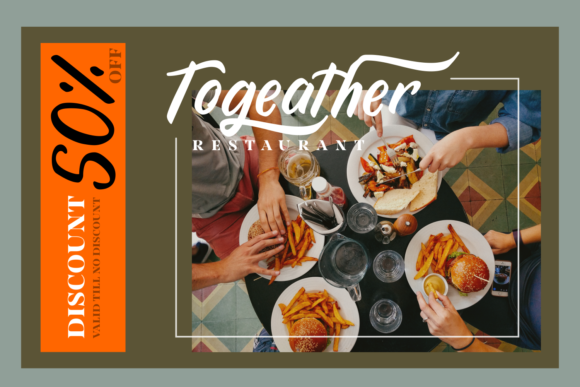
Aloody Font: Elevate Your Designs with Bold, Hand-Drawn Flair
Are you tired of using the same old fonts in your designs? Do you want to add a touch of elegance and sophistication to your projects? Look no further than Aloody Font, a stunning hand-drawn typeface that features bold, strong swashes. These decorative extras make it the perfect font for creating impactful designs, such as headlines, posters, banners, and much more.
What Makes Aloody Font So Special?
Aloody Font is a unique and eye-catching typeface that is sure to take your designs to the next level. Its bold, hand-drawn style gives it a distinctive look that is both modern and elegant. The font features strong swashes that add a touch of drama and flair to any design. Whether you’re creating a headline, poster, or banner, Aloody Font is the perfect choice.
Key Features of Aloody Font
- Hand-drawn style: Aloody Font features a unique, hand-drawn style that gives it a distinctive look.
- Bold and strong swashes: The font features bold, strong swashes that add a touch of drama and flair to any design.
- Perfect for headlines and titles: Aloody Font is perfect for creating impactful headlines and titles that grab attention.
- Versatile: The font can be used for a wide range of design projects, including posters, banners, logos, and more.
Why Designers and Crafters Love Aloody Font
Aloody Font has quickly become a favorite among designers and crafters, and for good reason. The font’s unique style and versatility make it perfect for a wide range of design projects. Here are just a few reasons why designers and crafters love Aloody Font:
- High-quality design: The font features a high-quality design that is sure to impress.
- Unique style: Aloody Font’s unique style sets it apart from other fonts and makes it perfect for designers who want to create something truly special.
How to Use Aloody Font in Your Designs
Using Aloody Font in your designs is easy. Here are just a few tips to get you started:
- Pair it with other fonts: Aloody Font pairs well with other fonts, so don’t be afraid to experiment with different combinations.
- Use it for headlines and titles: Aloody Font is perfect for creating impactful headlines and titles that grab attention.
- Add a pop of color: Add a pop of color to your design by using Aloody Font in a bold, bright color.
Aloody Font is a stunning hand-drawn typeface that features bold, strong swashes. Its unique style and versatility make it perfect for a wide range of design projects, from headlines and posters to banners and logos. Whether you’re a designer or crafter, Aloody Font is sure to become a favorite in your collection. So why wait? Download Aloody Font today and start creating impactful designs that grab attention.